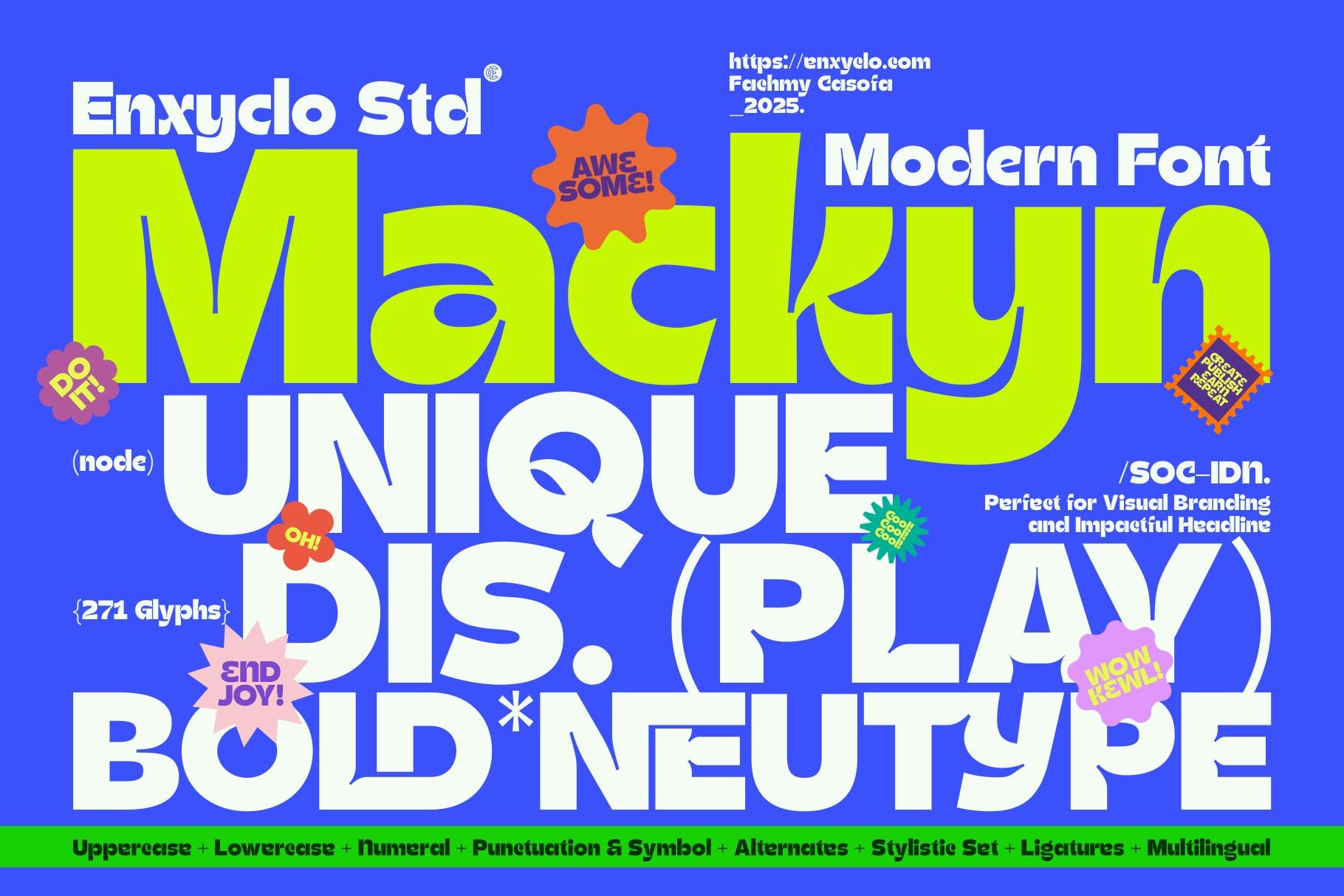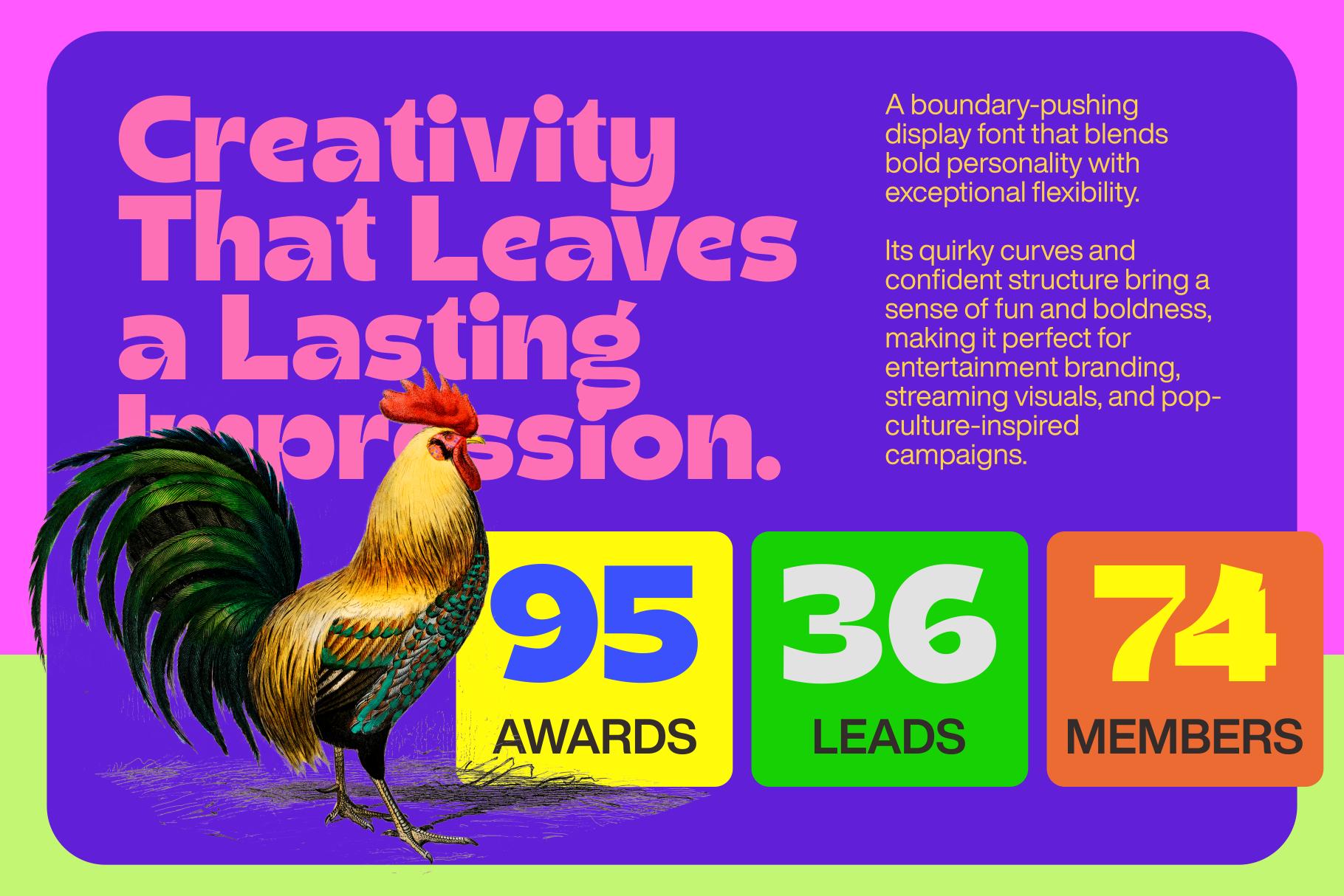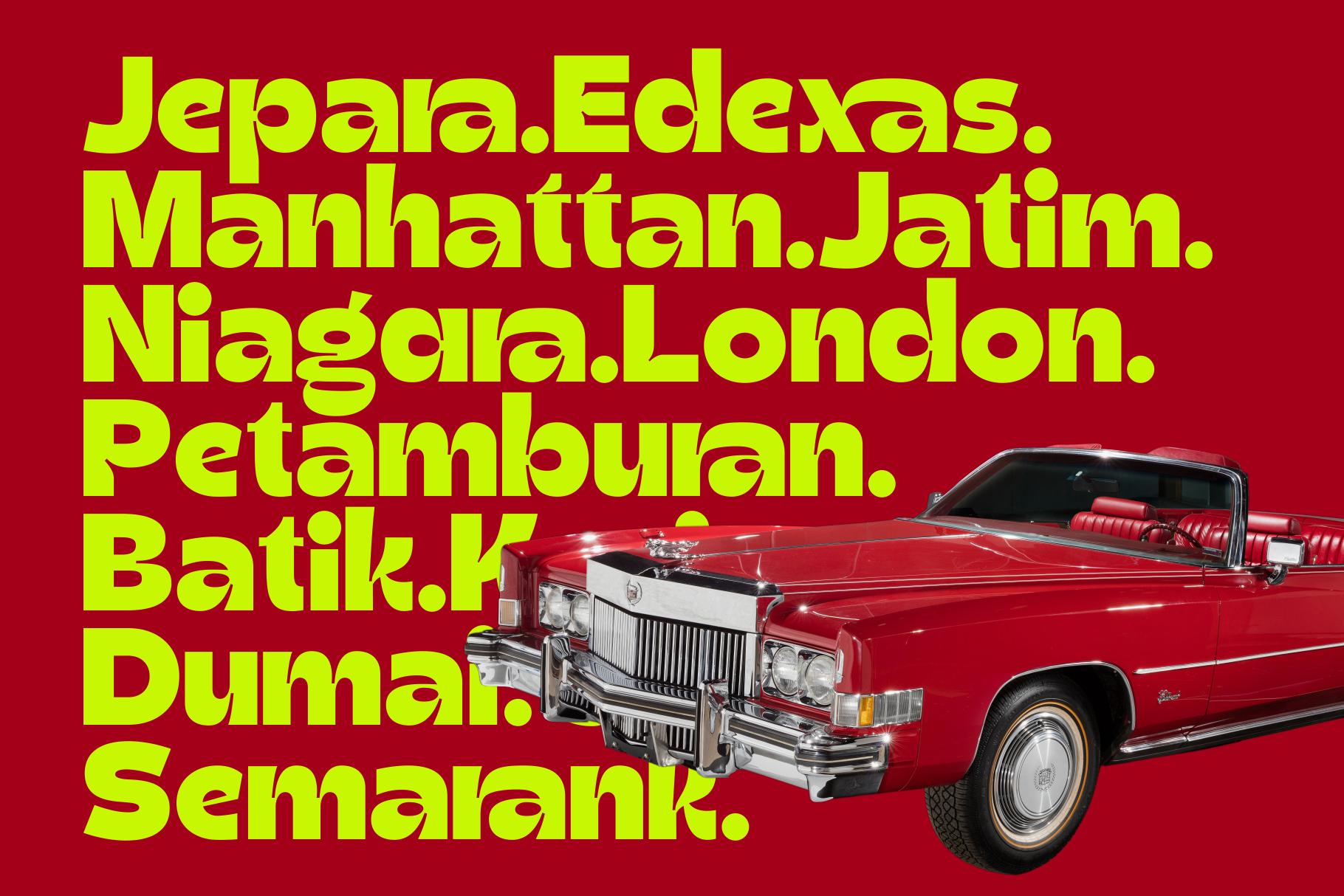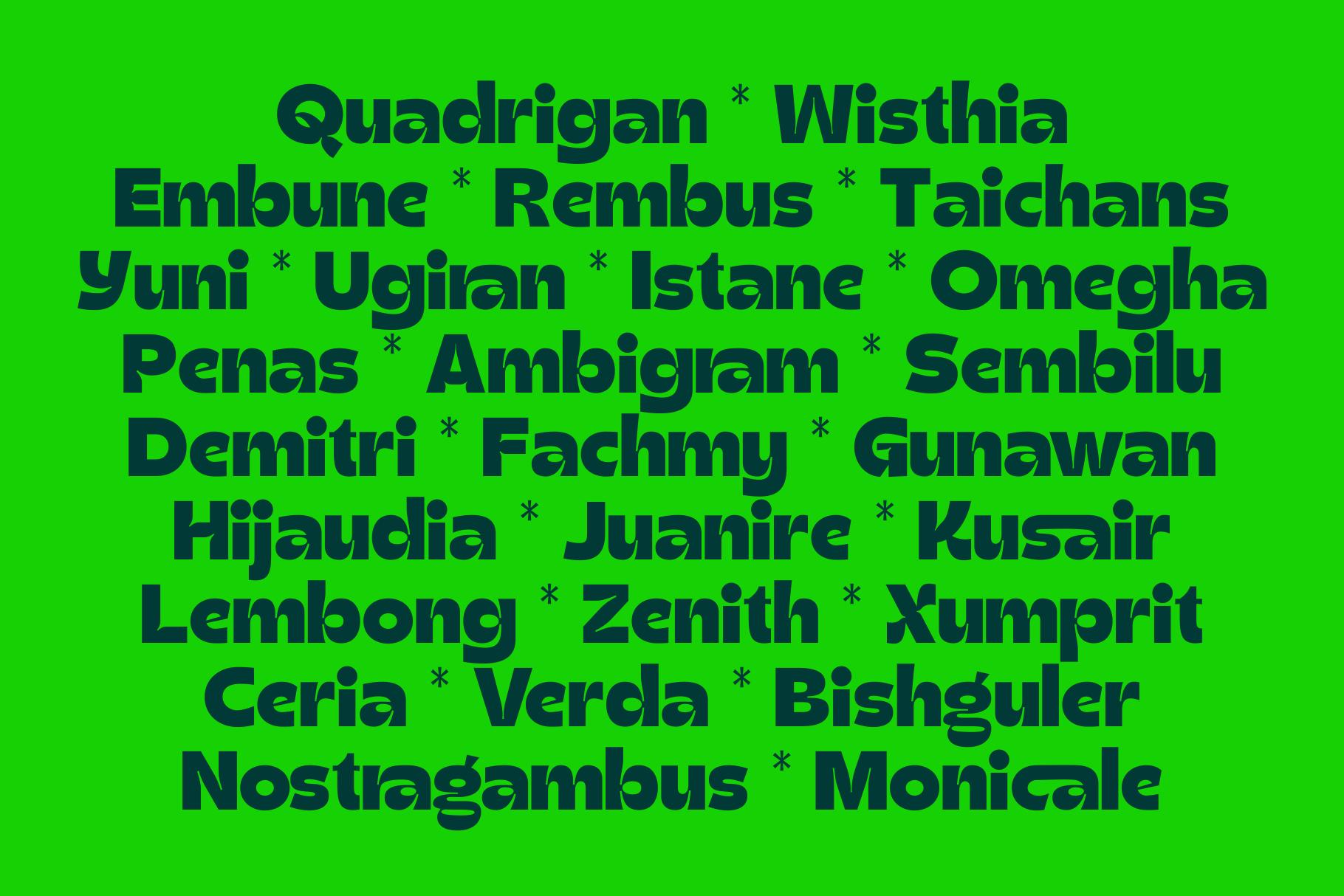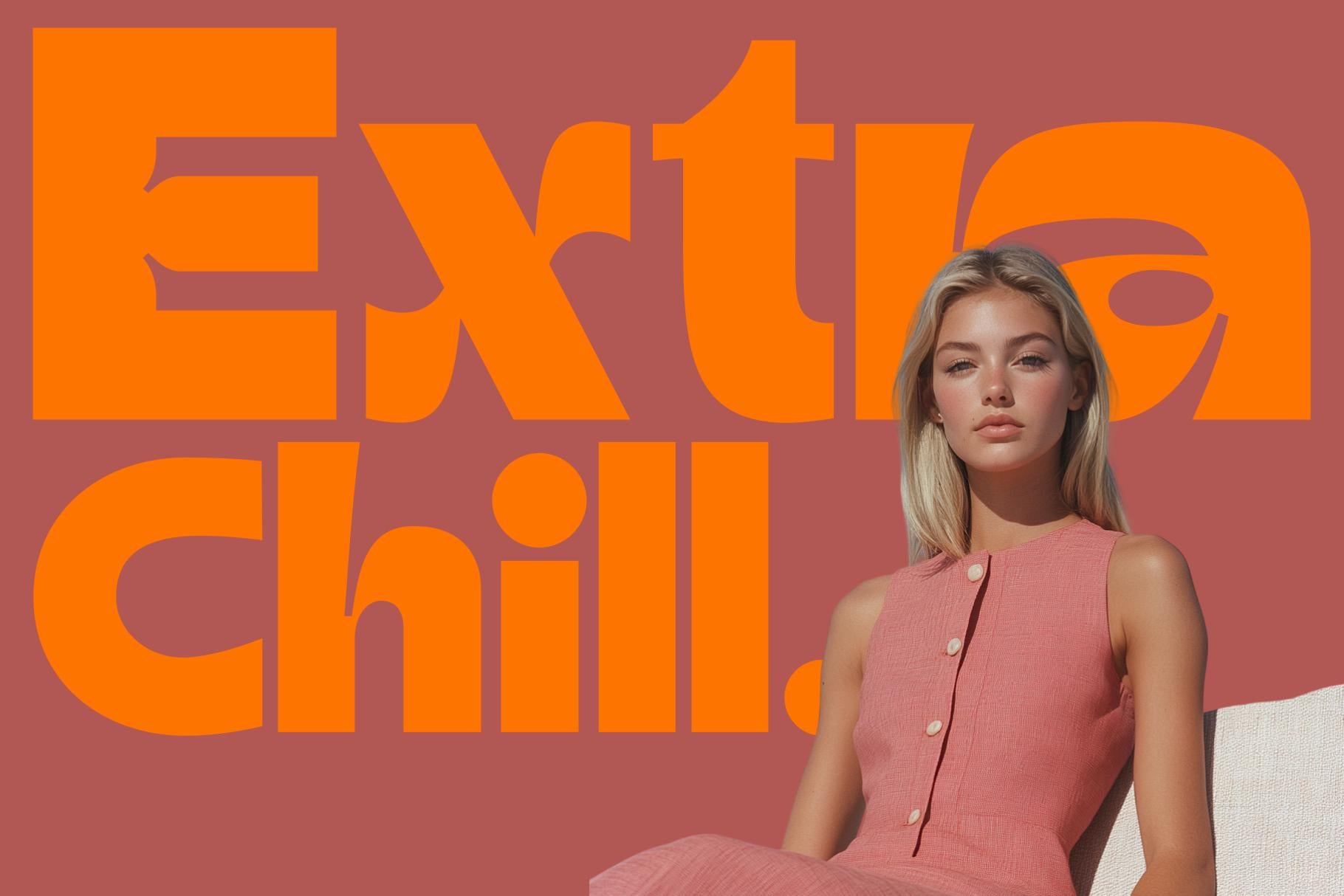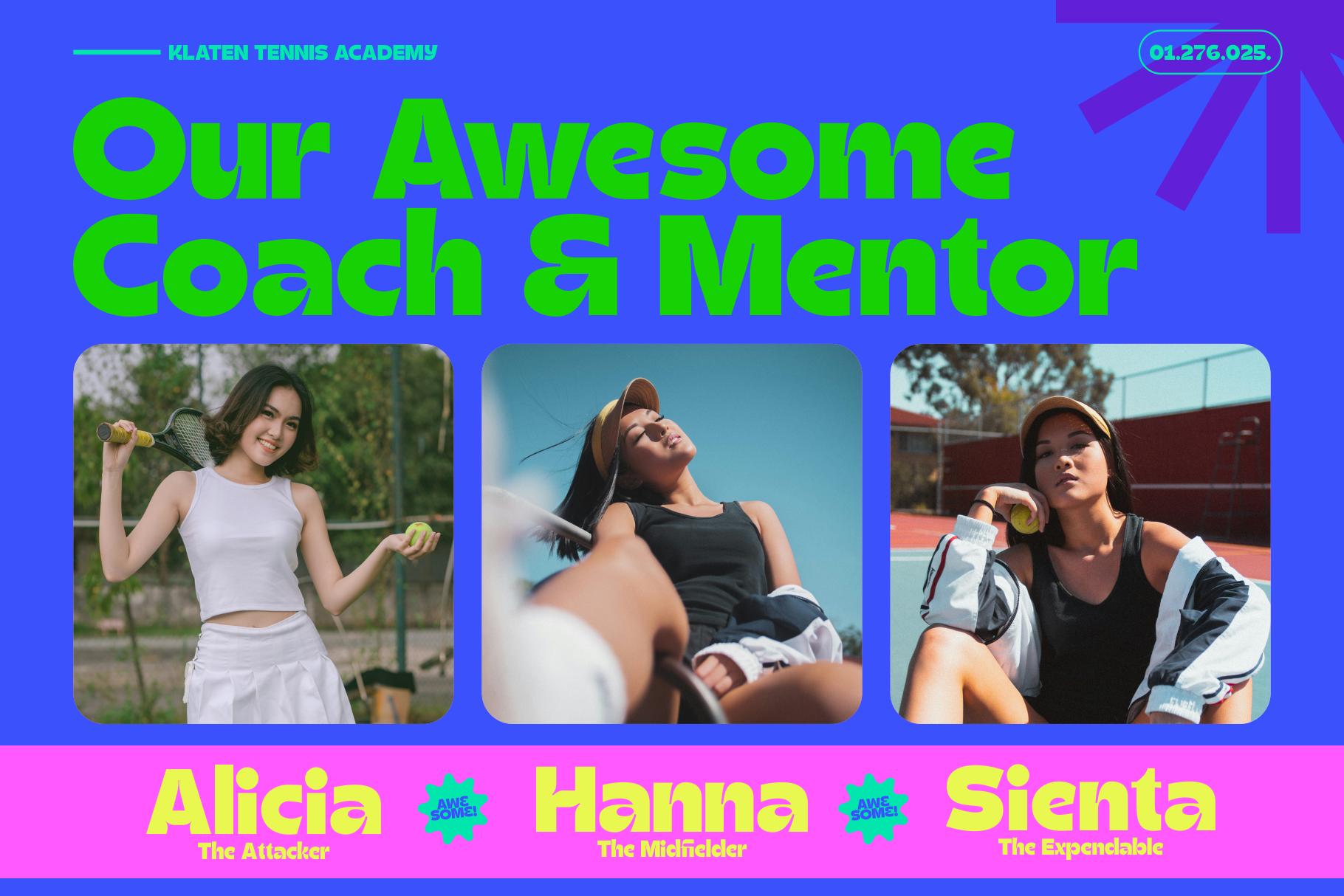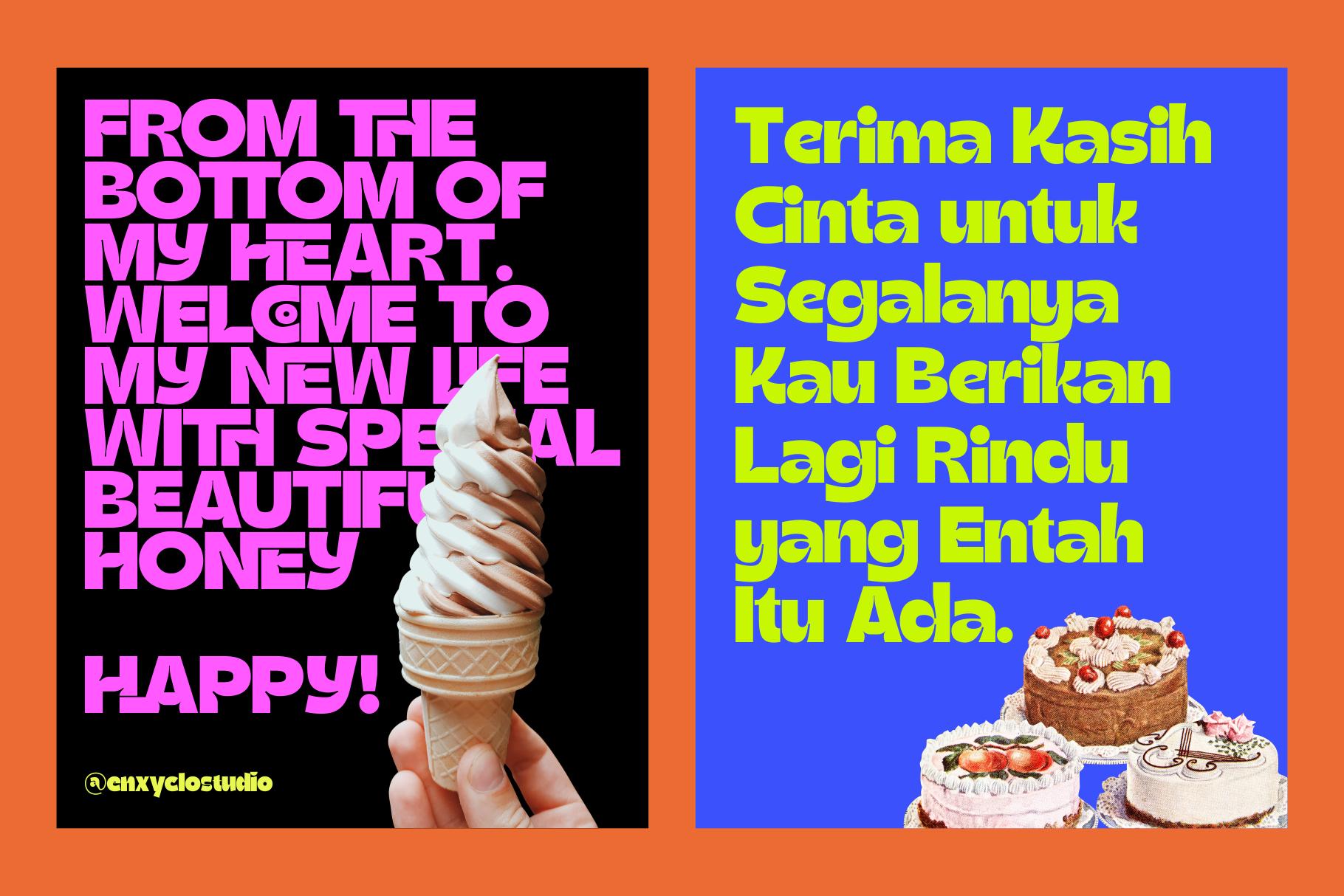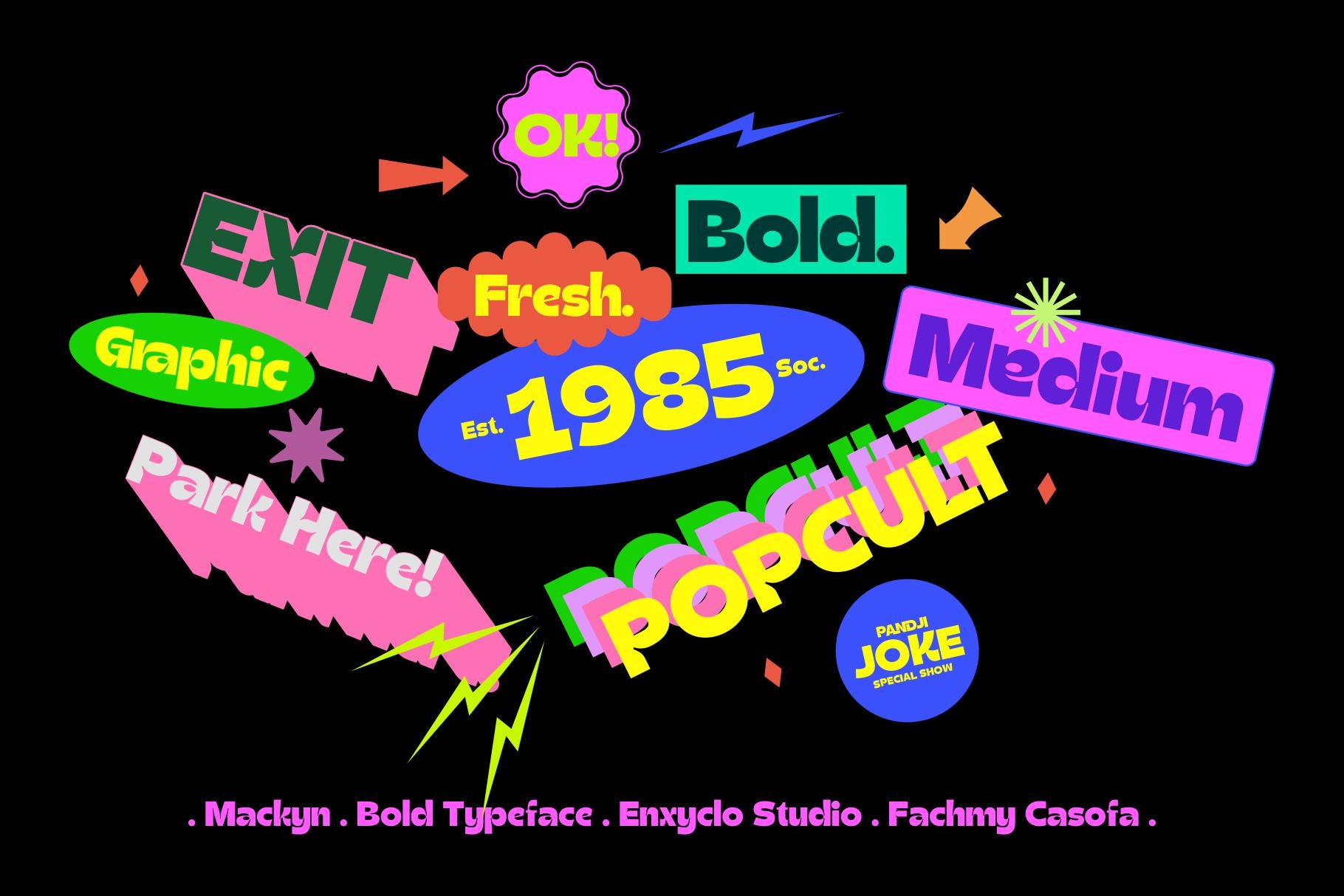
MACKYN
MACKYN is a modern, bold display font designed for impactful branding and visual statements. It includes uppercase and lowercase letters, numerals, punctuation, and symbols, along with alternates, stylistic sets, and ligatures for customization, featuring 271 glyphs and multilingual support.